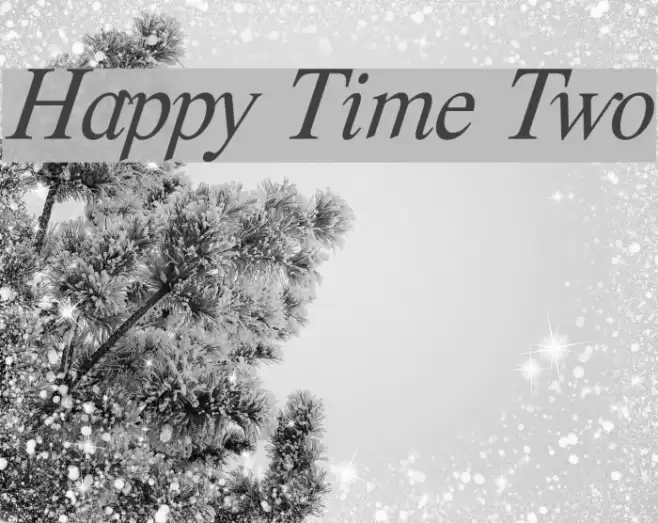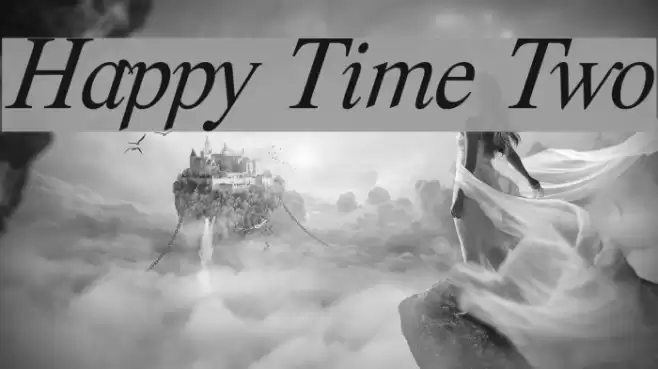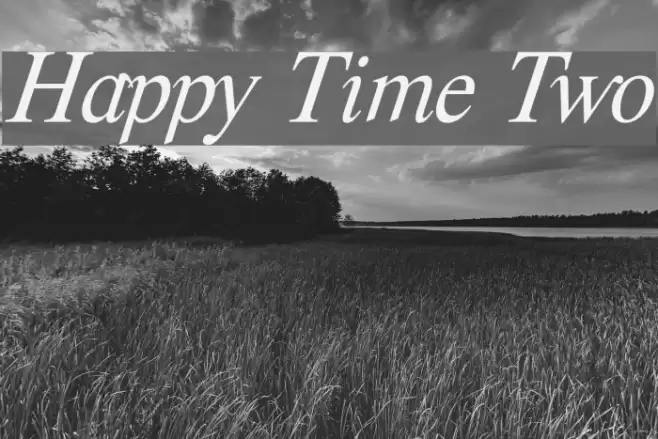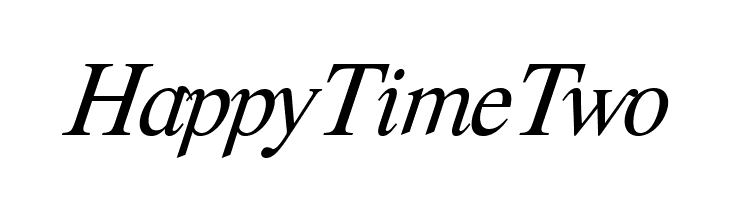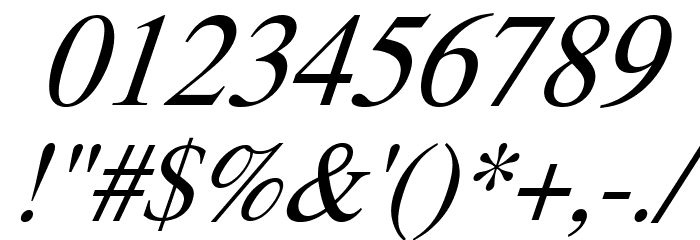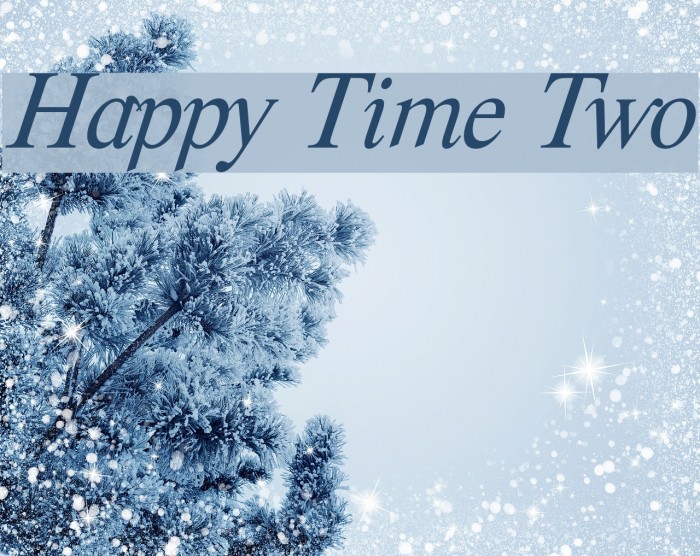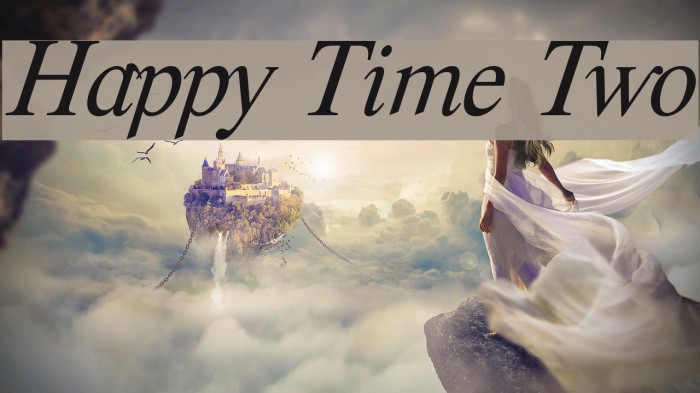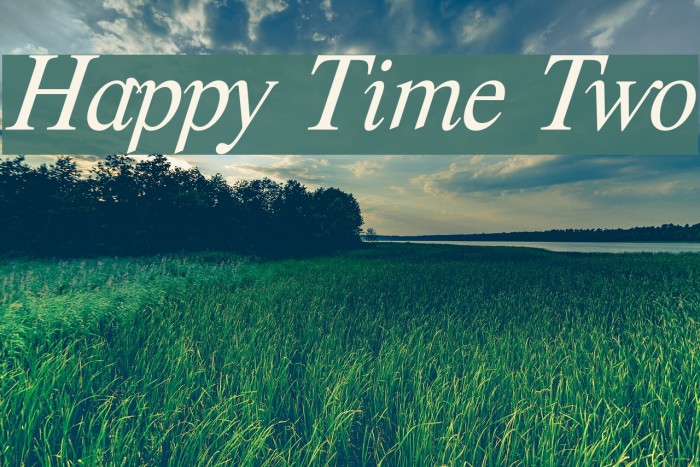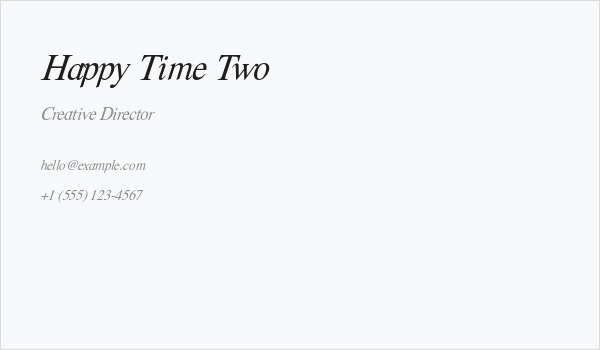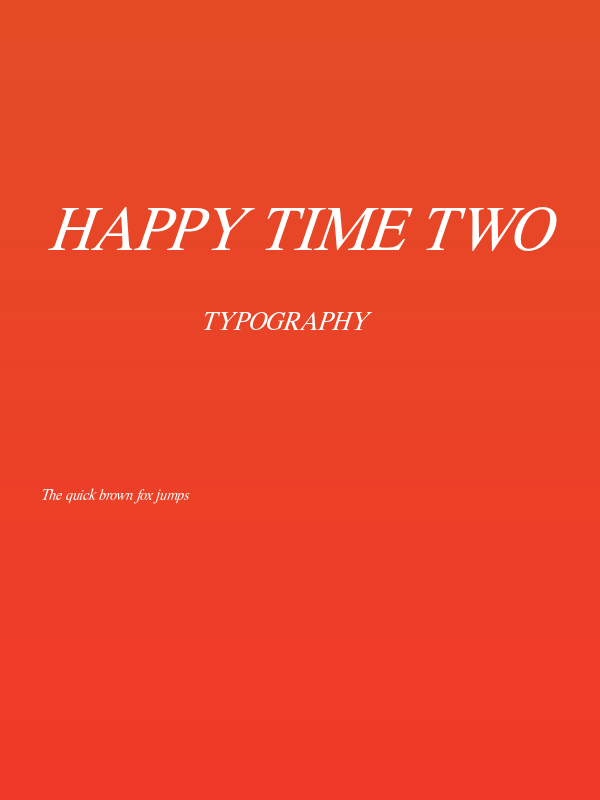
Happy Time Two Font
Happy Time Two Description
This elegant typeface features a classic serif style with a distinct italic slant, giving it a sophisticated and timeless appearance. The characters are well-defined with sharp serifs and a moderate contrast between thick and thin strokes, enhancing readability while maintaining an artistic flair. The uppercase letters are bold and commanding, while the lowercase letters are more delicate, offering a harmonious balance. Numerals are clear and consistent, making them suitable for both formal and creative applications. The special characters are crafted with the same attention to detail, ensuring uniformity across the typeface.
A classic serif typeface with an elegant italic slant and moderate contrast from Uncategorized fonts.
- Proposed Projects: Ideal for branding, editorial design, invitations, and formal documents.
- Overall Style: Classic